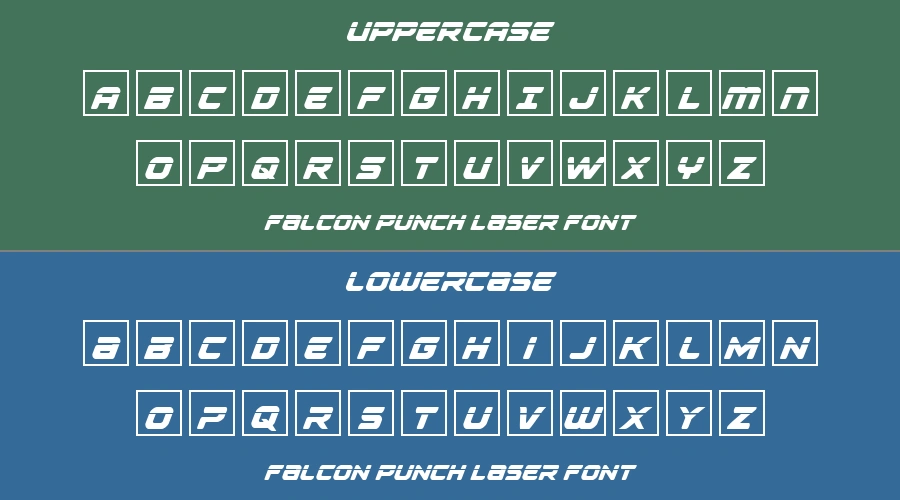
About Falcon Punch Laser Font
Designed with precision, Falcon Punch Laser Font merges tapered strokes with attention direction in every character. This versatility makes it particularly effective for technical documentation, where consistency and design heritage directly impact communication quality. Each letterform demonstrates meticulous craftsmanship.
Technical excellence shines through elements like geometric precision and small caps, enhancing typographic versatility. In running text settings, Falcon Punch Laser Font proves its worth through superior consumer preference. The thoughtful execution of bowl shape and subtle details ensures professional results.